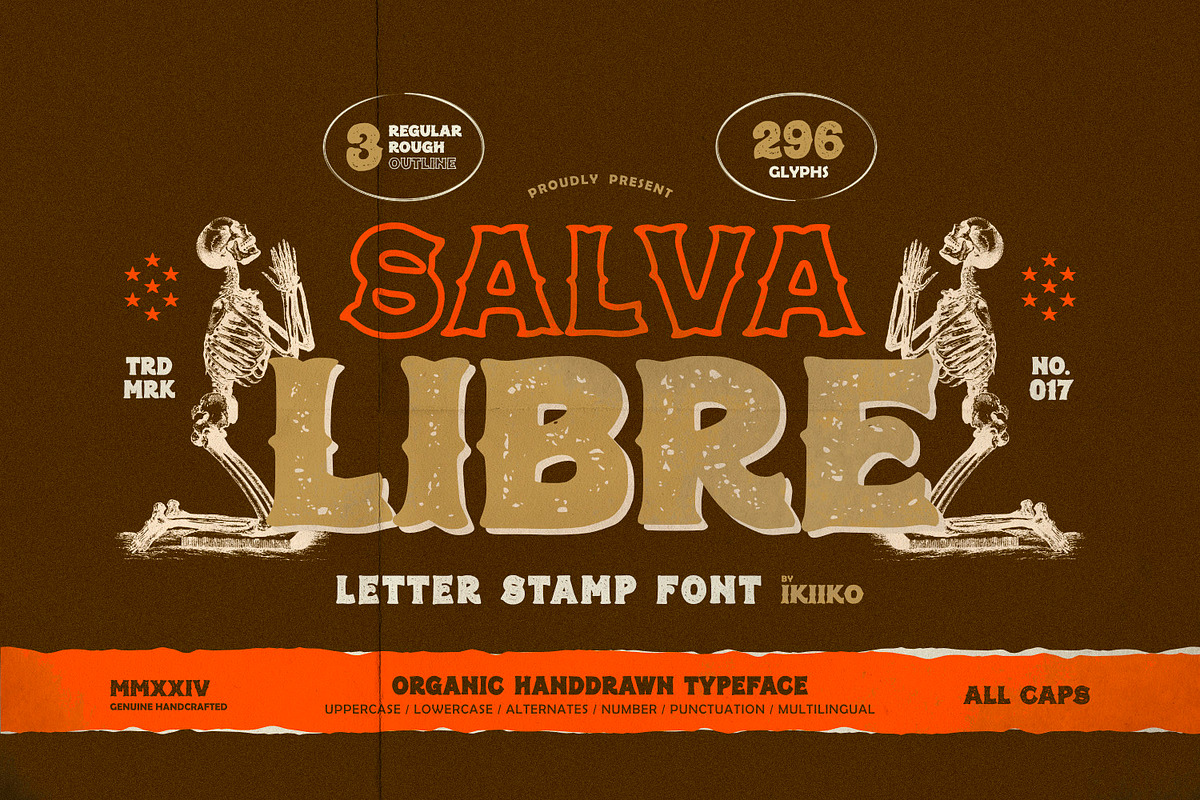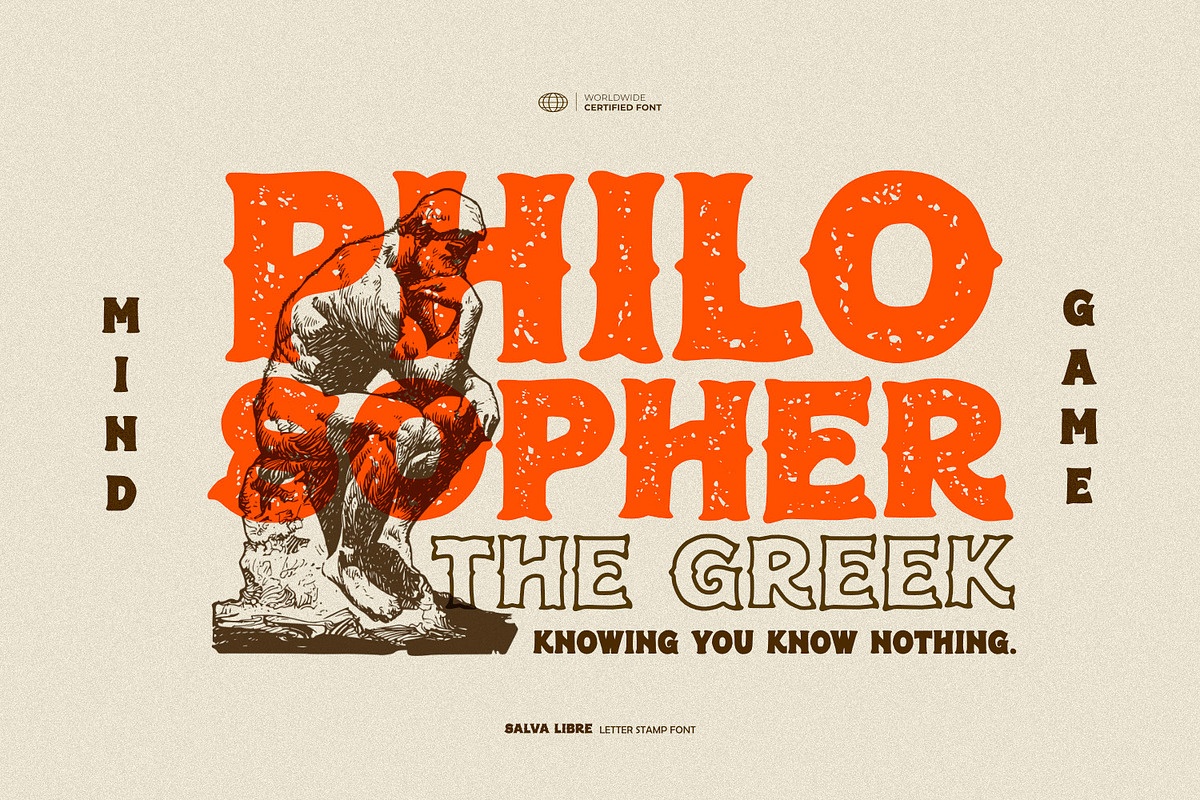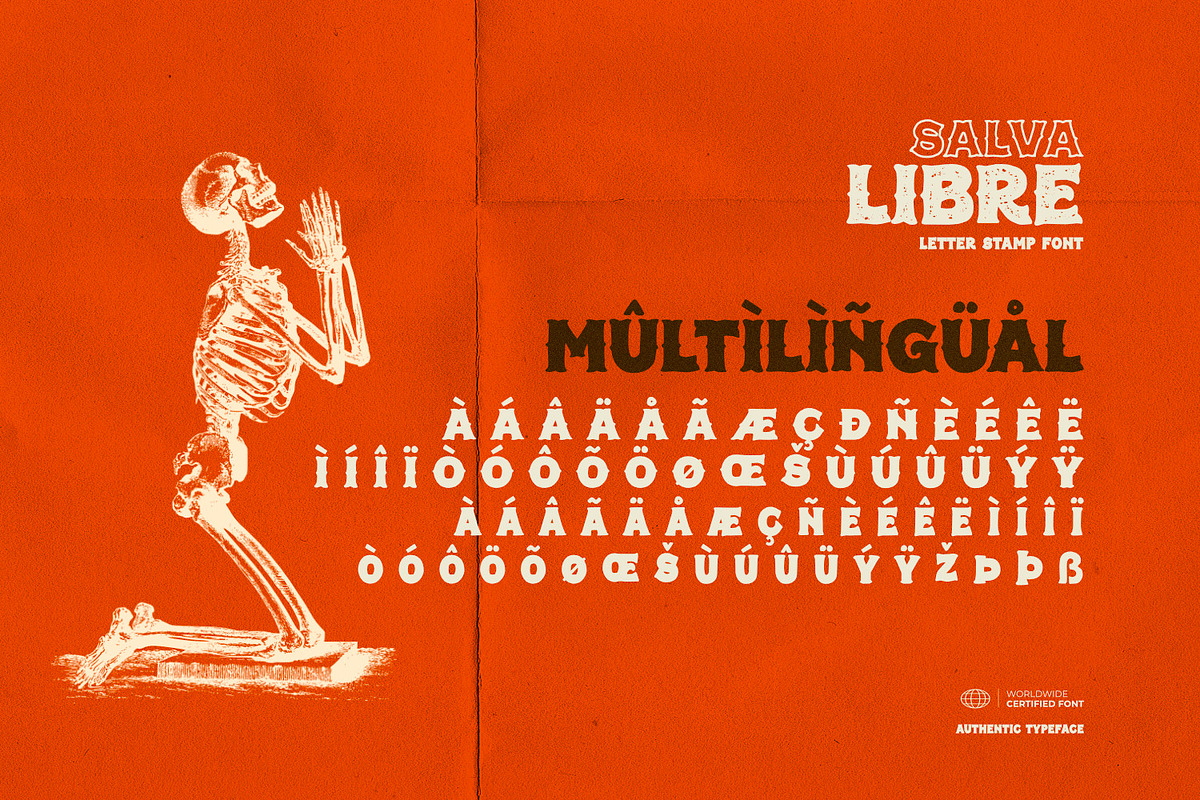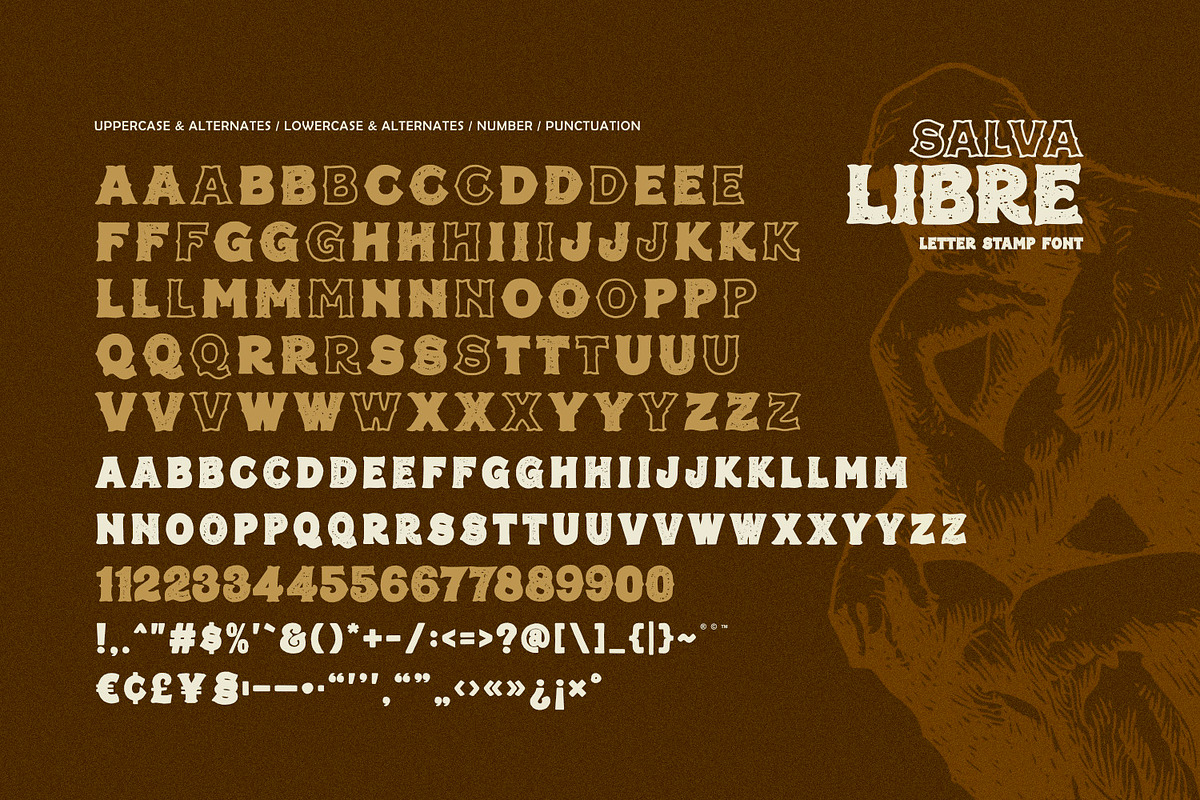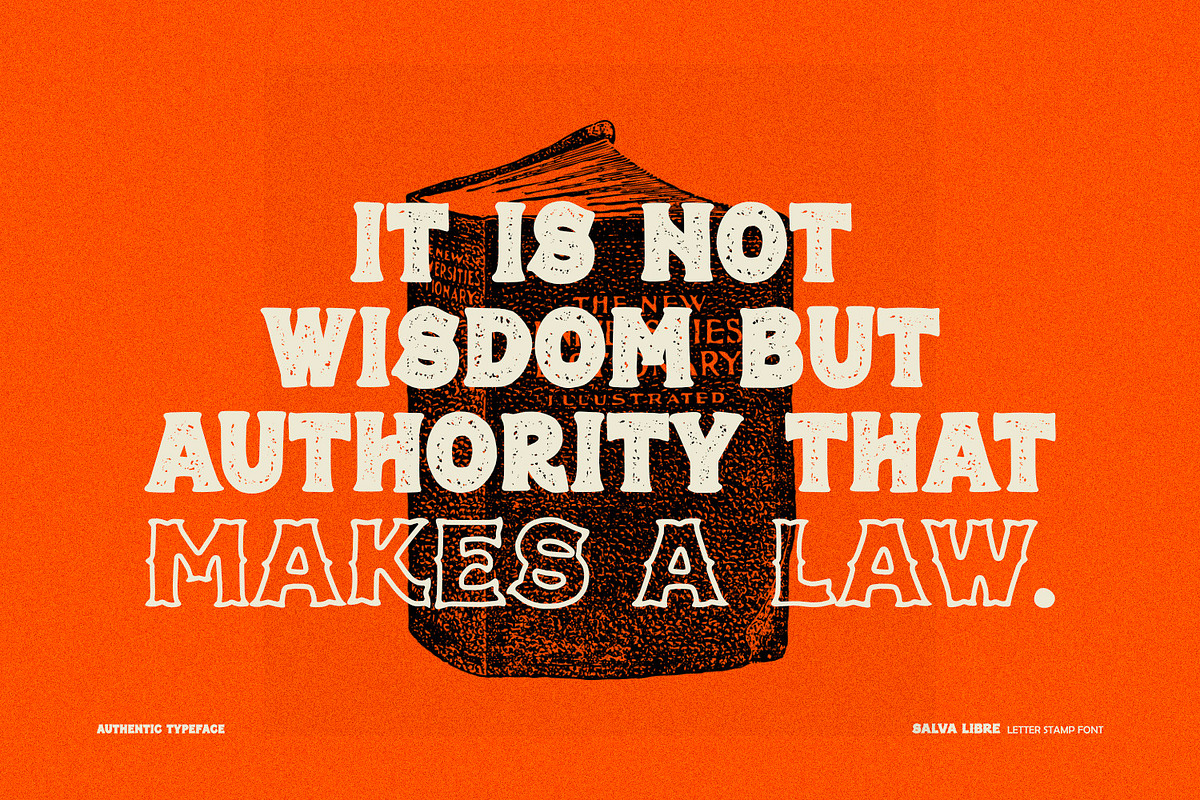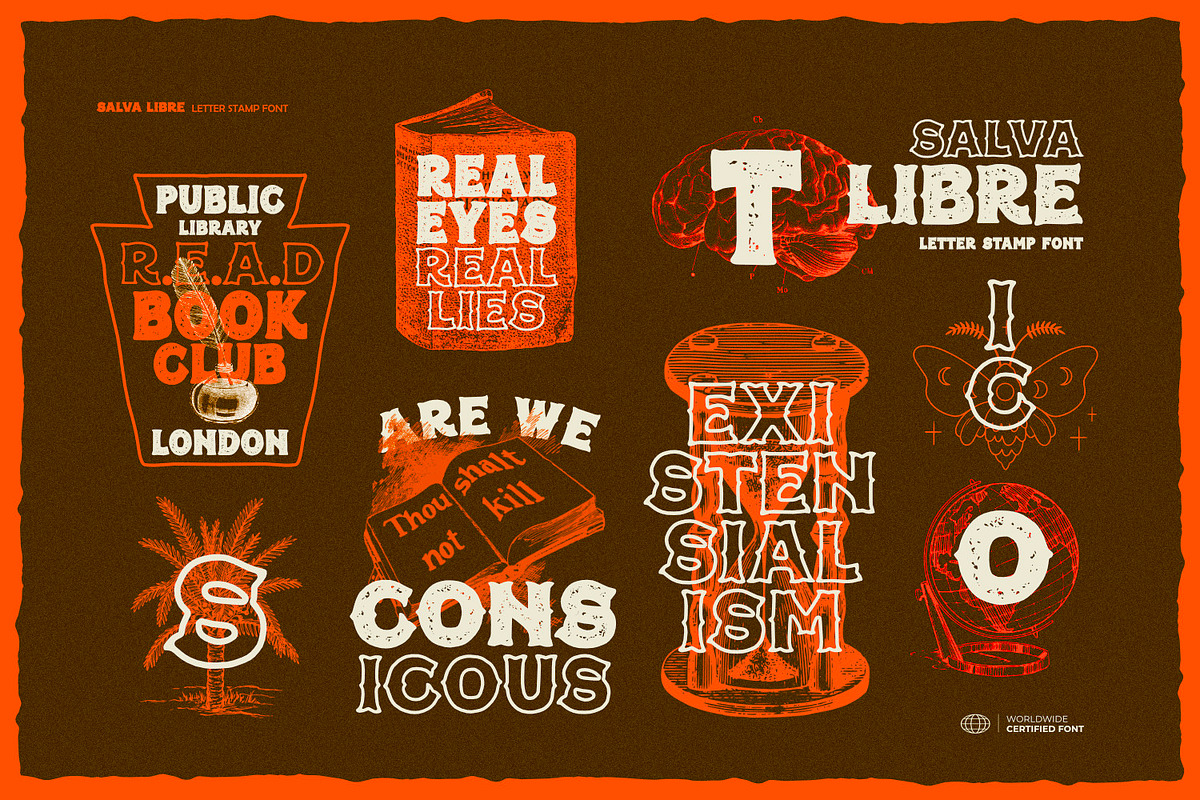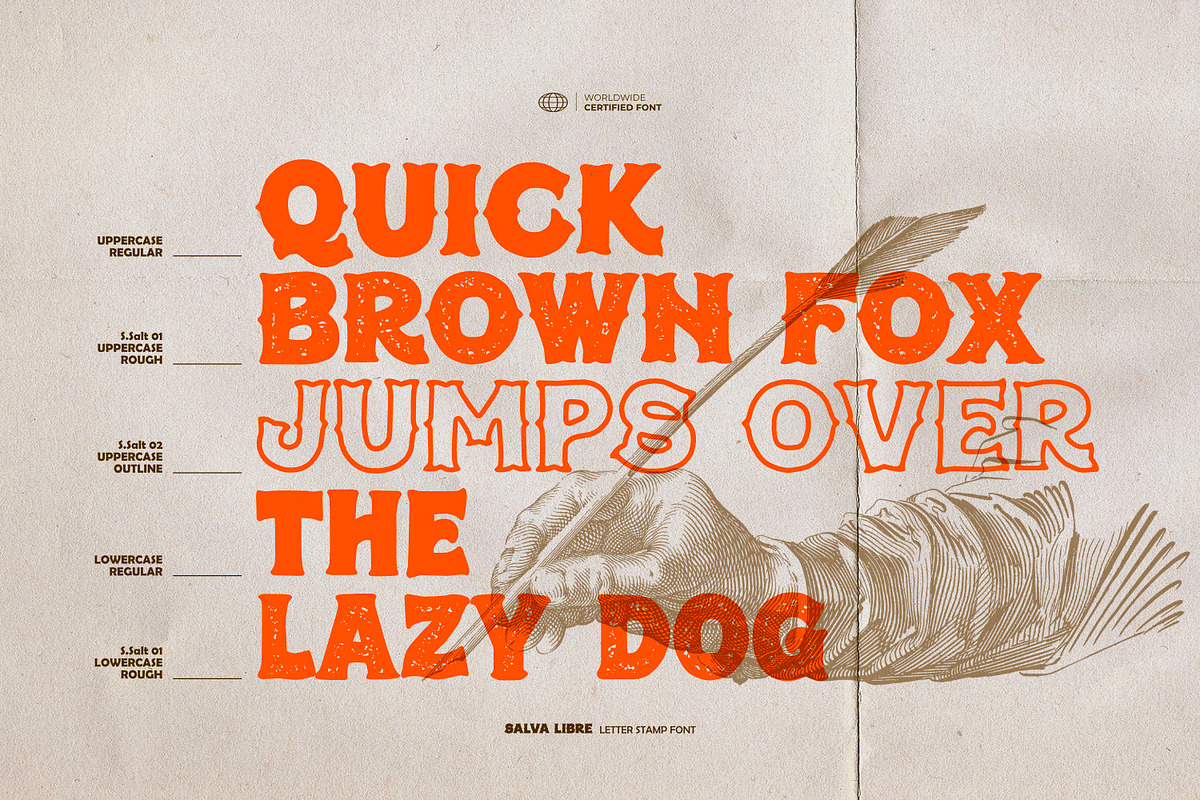
Salva Libre - Letter Stamp Font
Proudly present Salva Libre - Letter Stamp Font, created by ikiiko.
Salva Libre is not just a font; it is a journey back in time, capturing the heart of vintage allure and bohemian. This remarkable letter stamp font is a testament to exquisite craftsmanship, with its hand-drawn elegance bringing a sense of organic authenticity to your designs. Available in three compelling styles—regular, rough, and outline
The bold, rugged texture of a well-worn stamp that carries the stories of yesteryears. Each letter exudes a rough, tactile feel that makes your logos and branding projects resonate with timeless appeal. Salva Libre is a tribute to the art of craftsmanship.
This font is very suitable for making a vintage stuff, poster, book cover, movie title, magazine layout, packaging, food & beverages, quotes, or simply as a stylish text overlay to any background image.
- 3 Styles : Regular, Rough & Outline
- All Caps : Uppercase & Lowercase